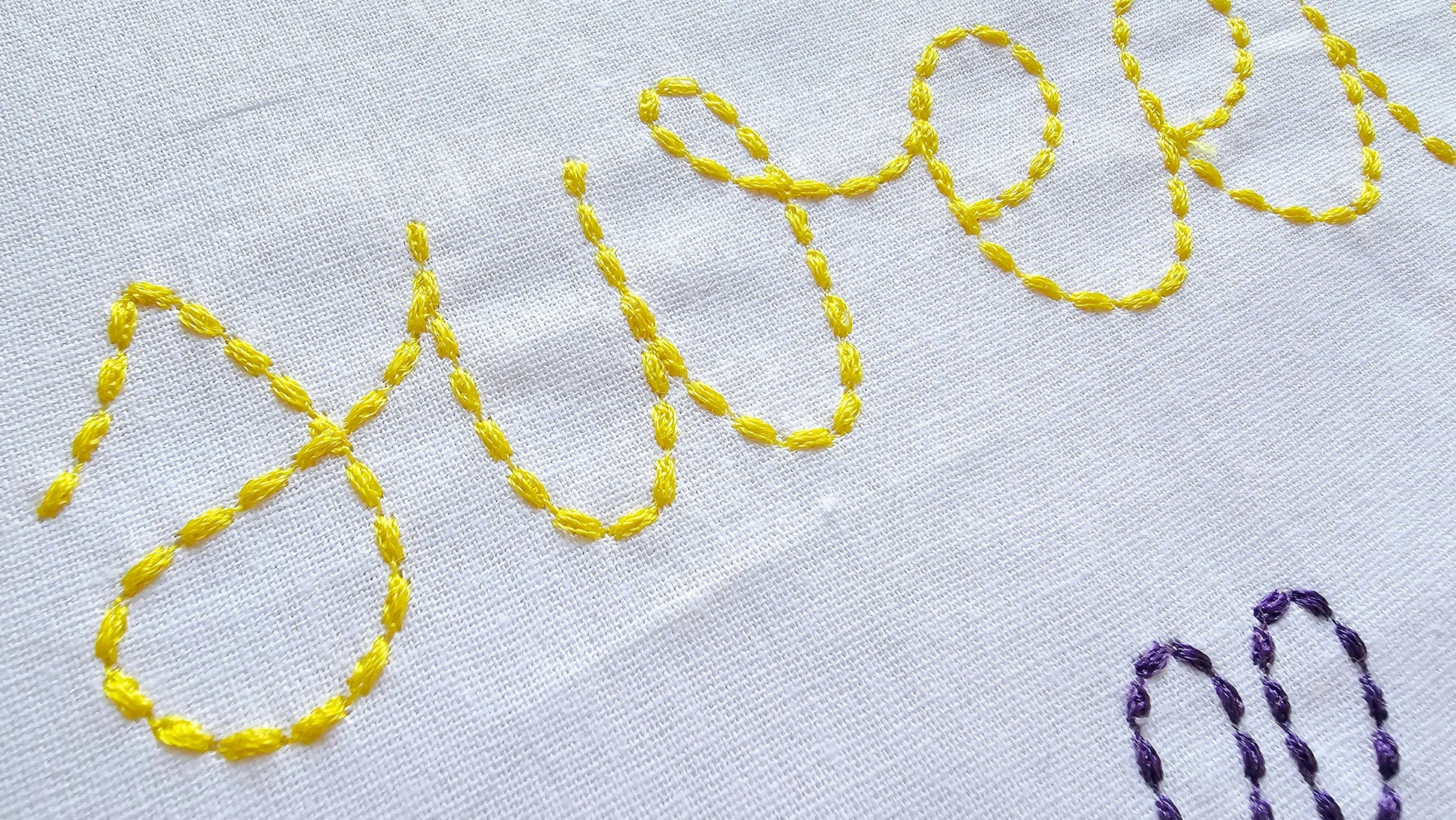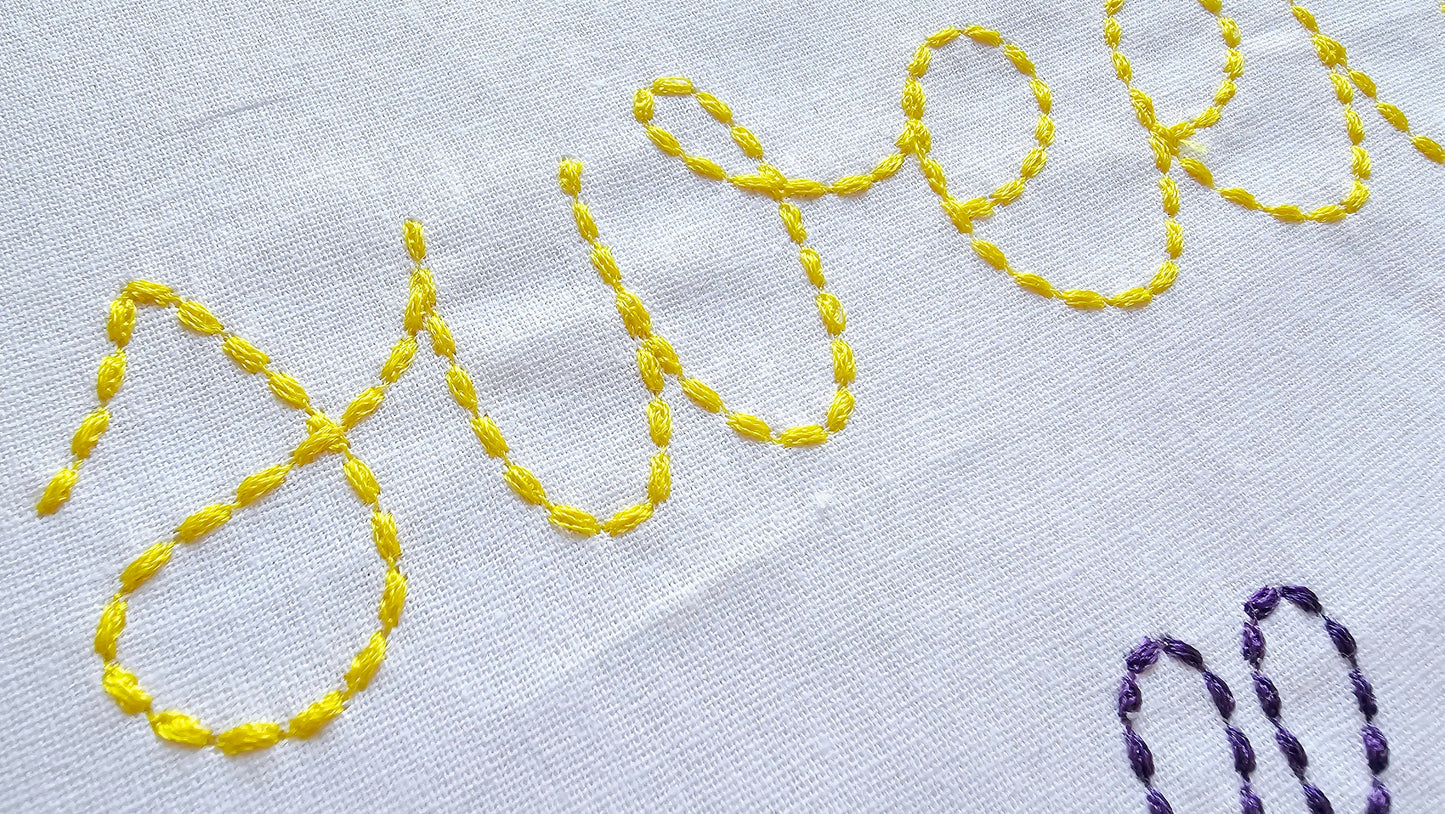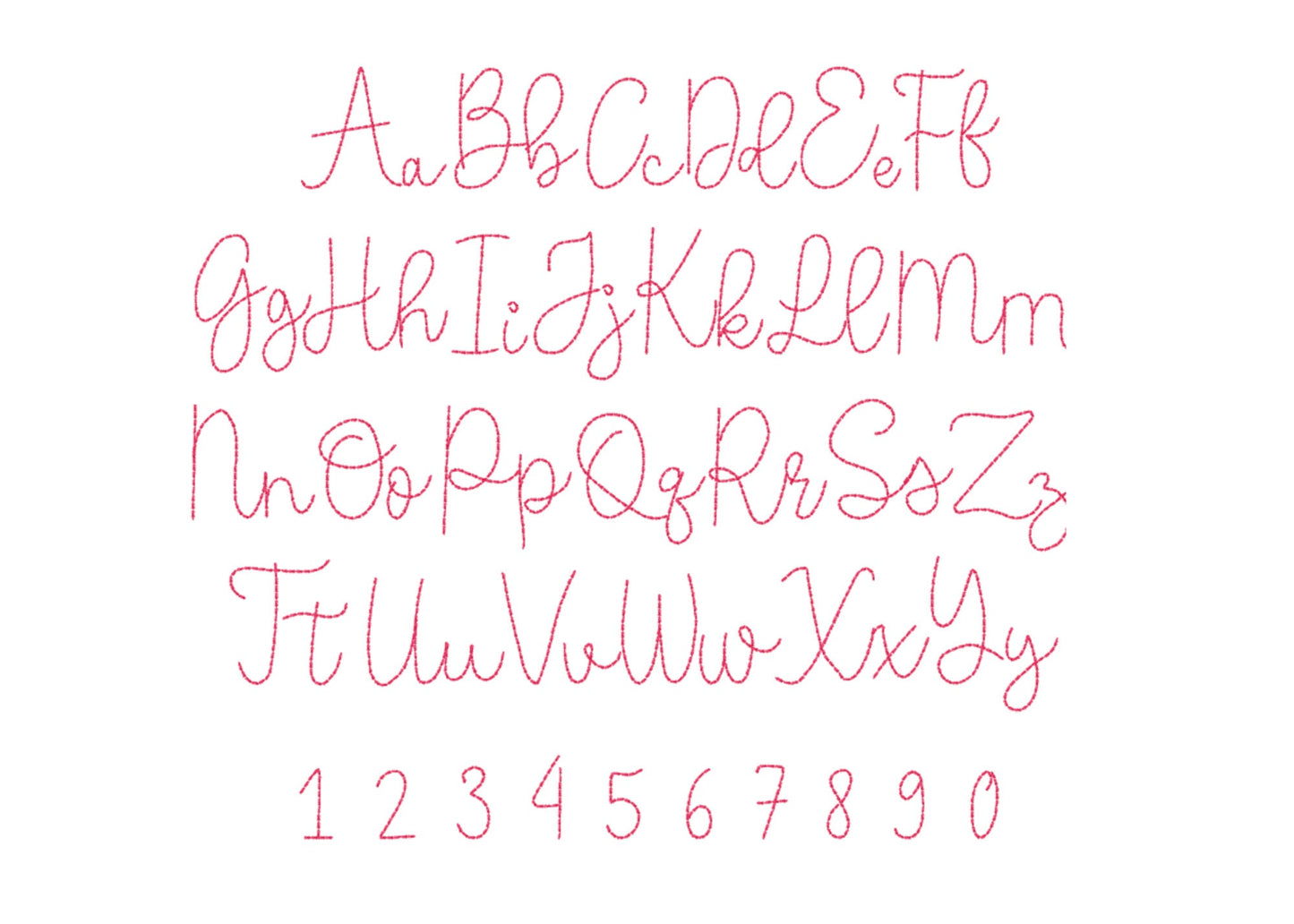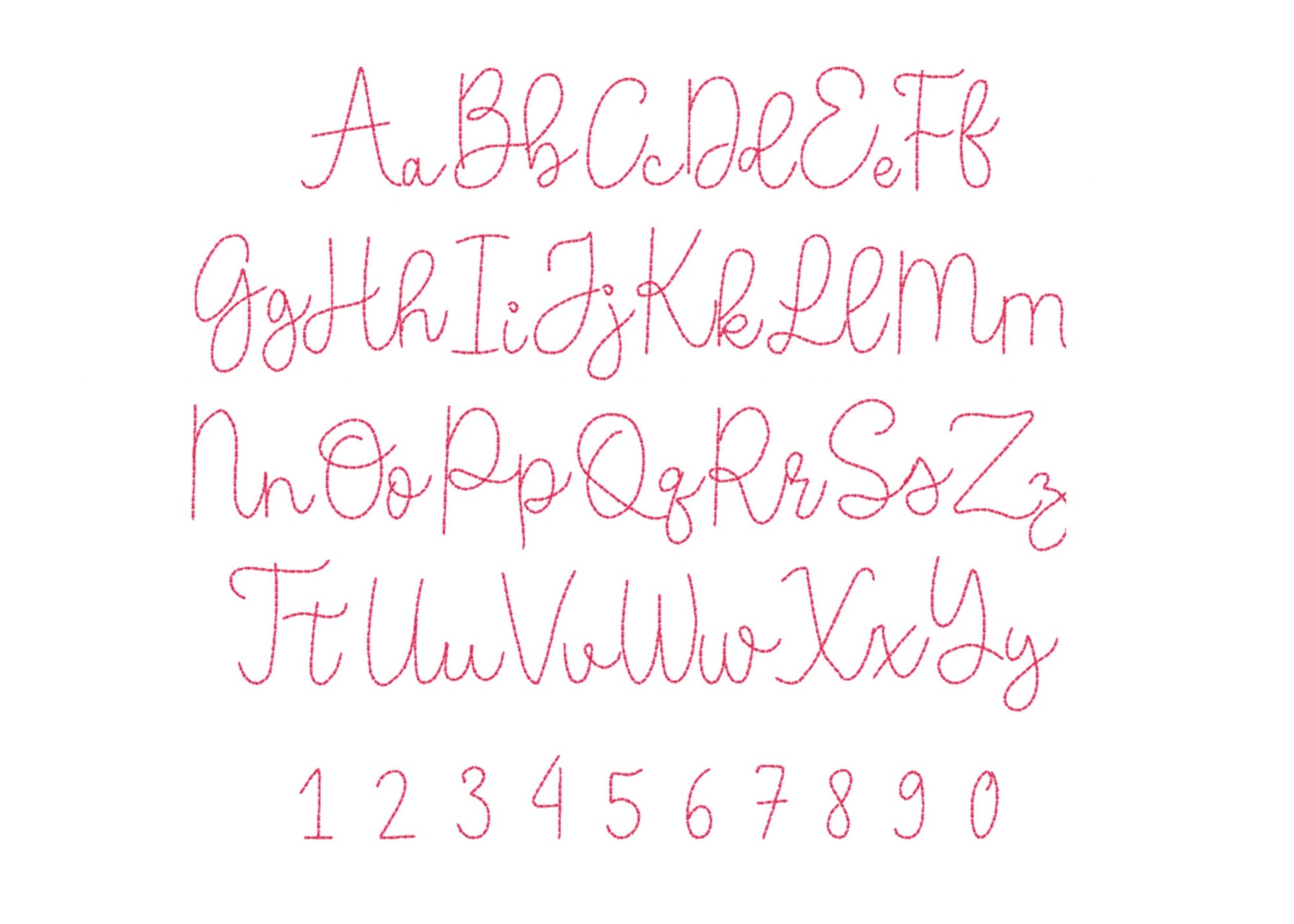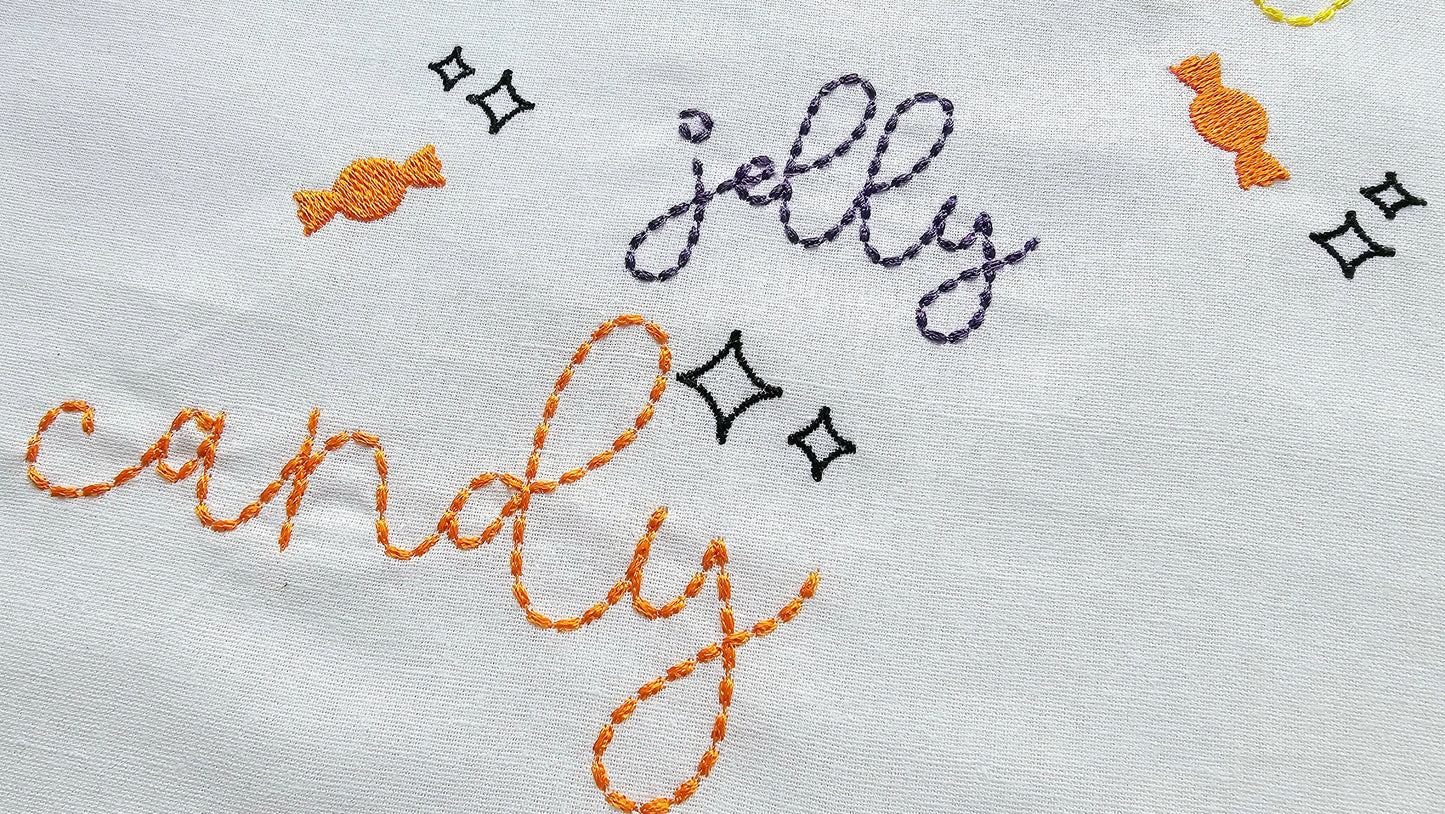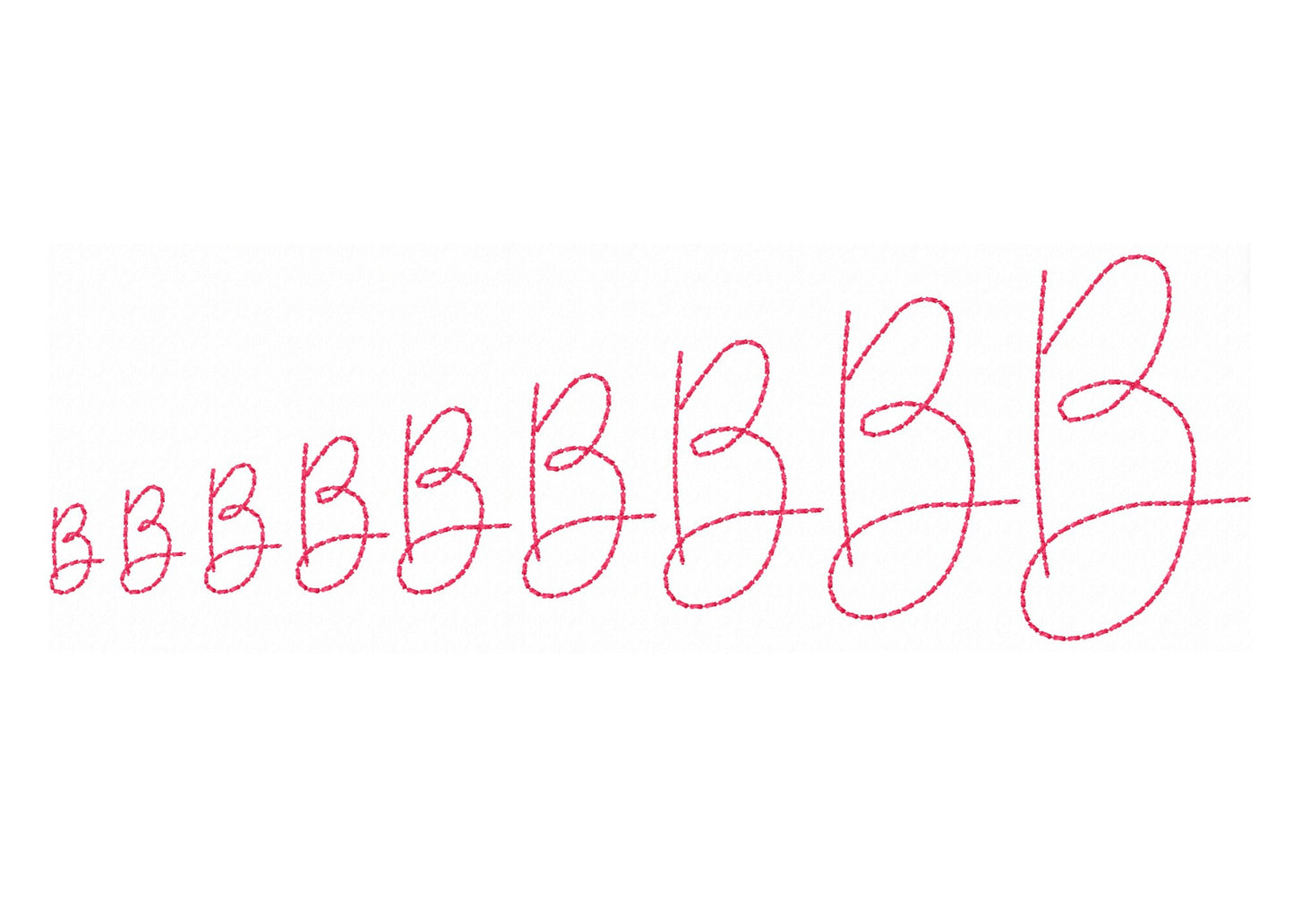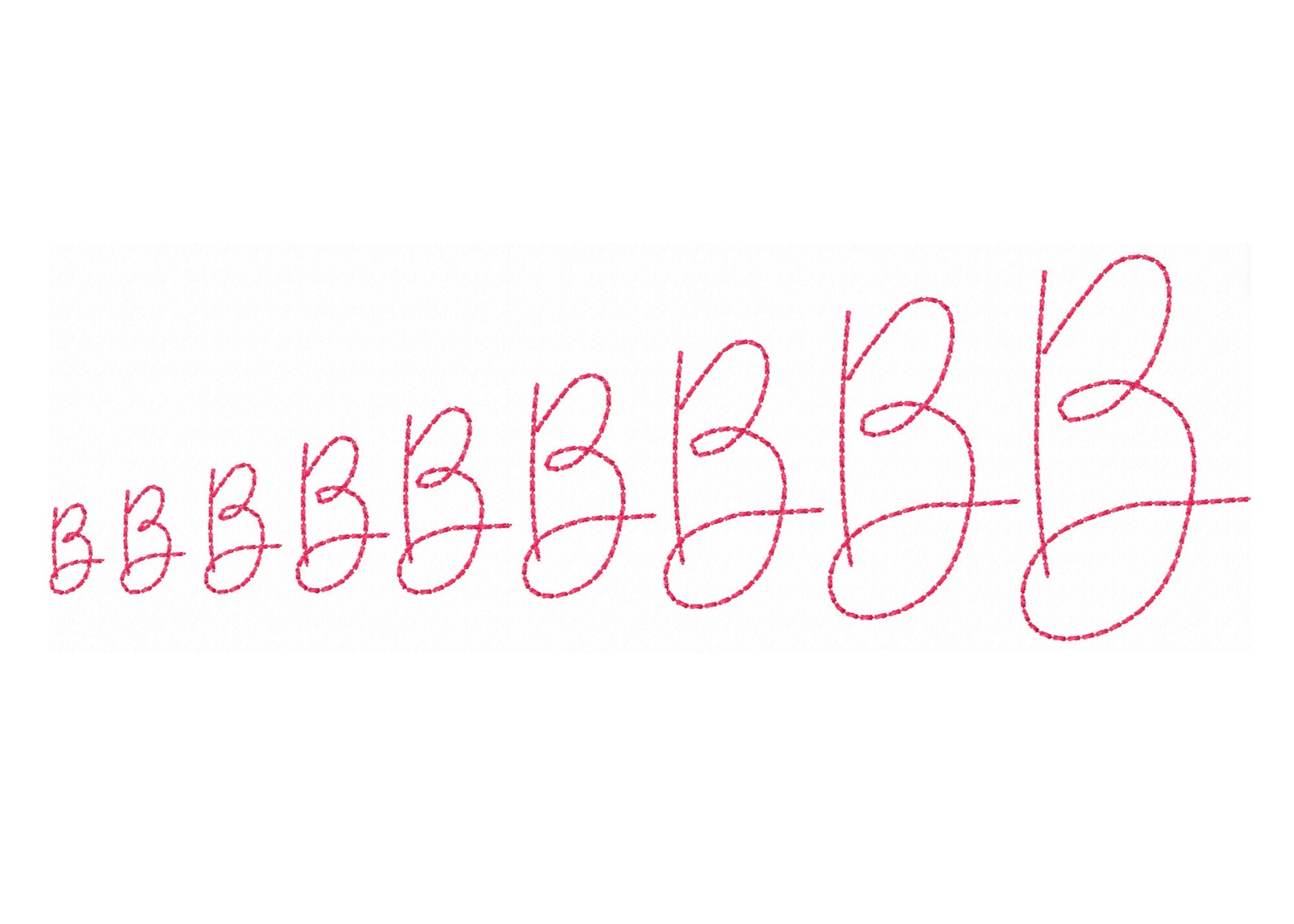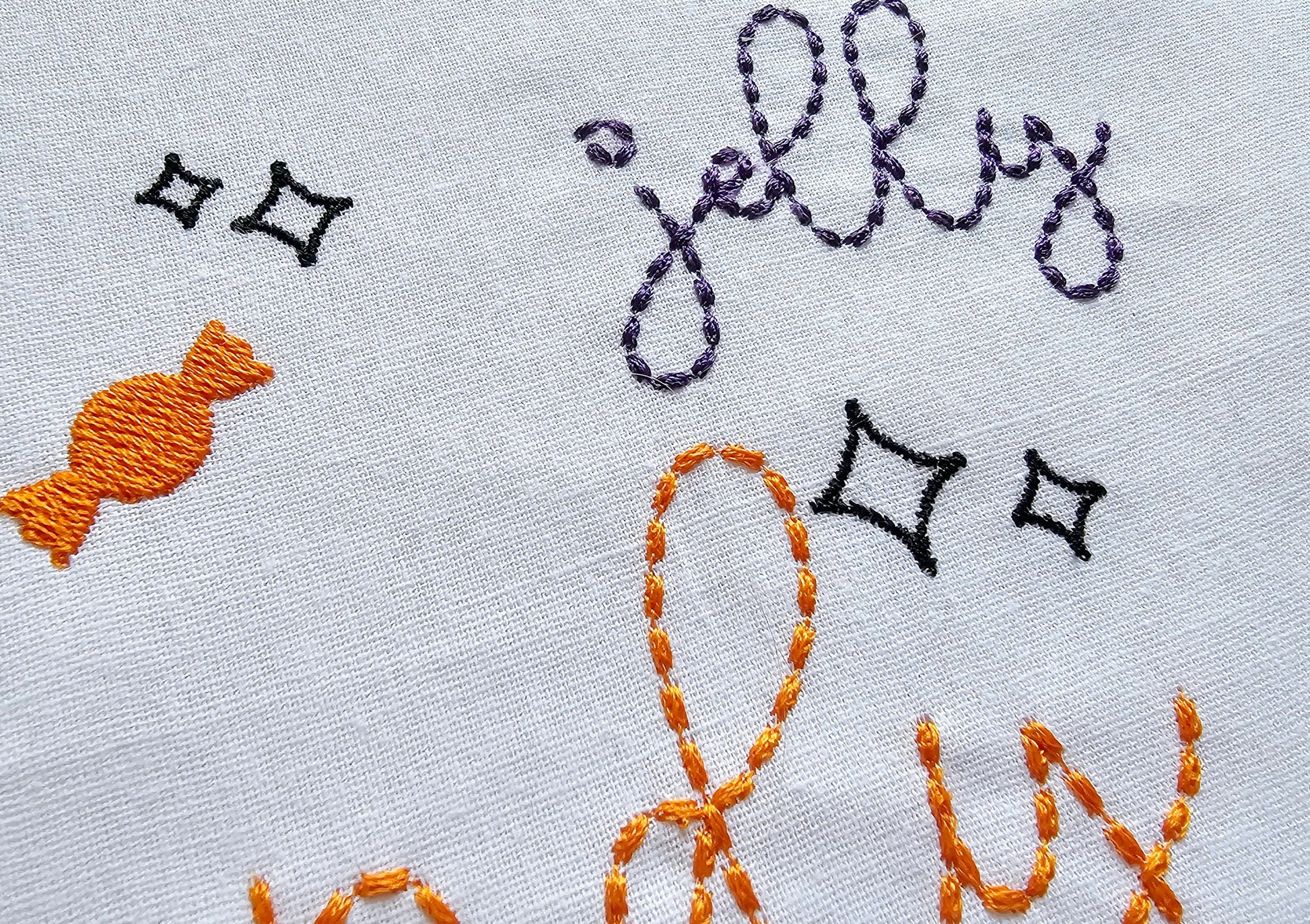
Or click to open the linkA playful font with a hand-stitched seed stitch look. Made for kids' names, necklines, shirts and small gifts.
Uppercase and lowercase letters, numbers 0 to 9 and a period. Nine sizes: 1, 1.4, 1.8, 2, 2.5, 2.8, 3.5, 4 and 5 inches.